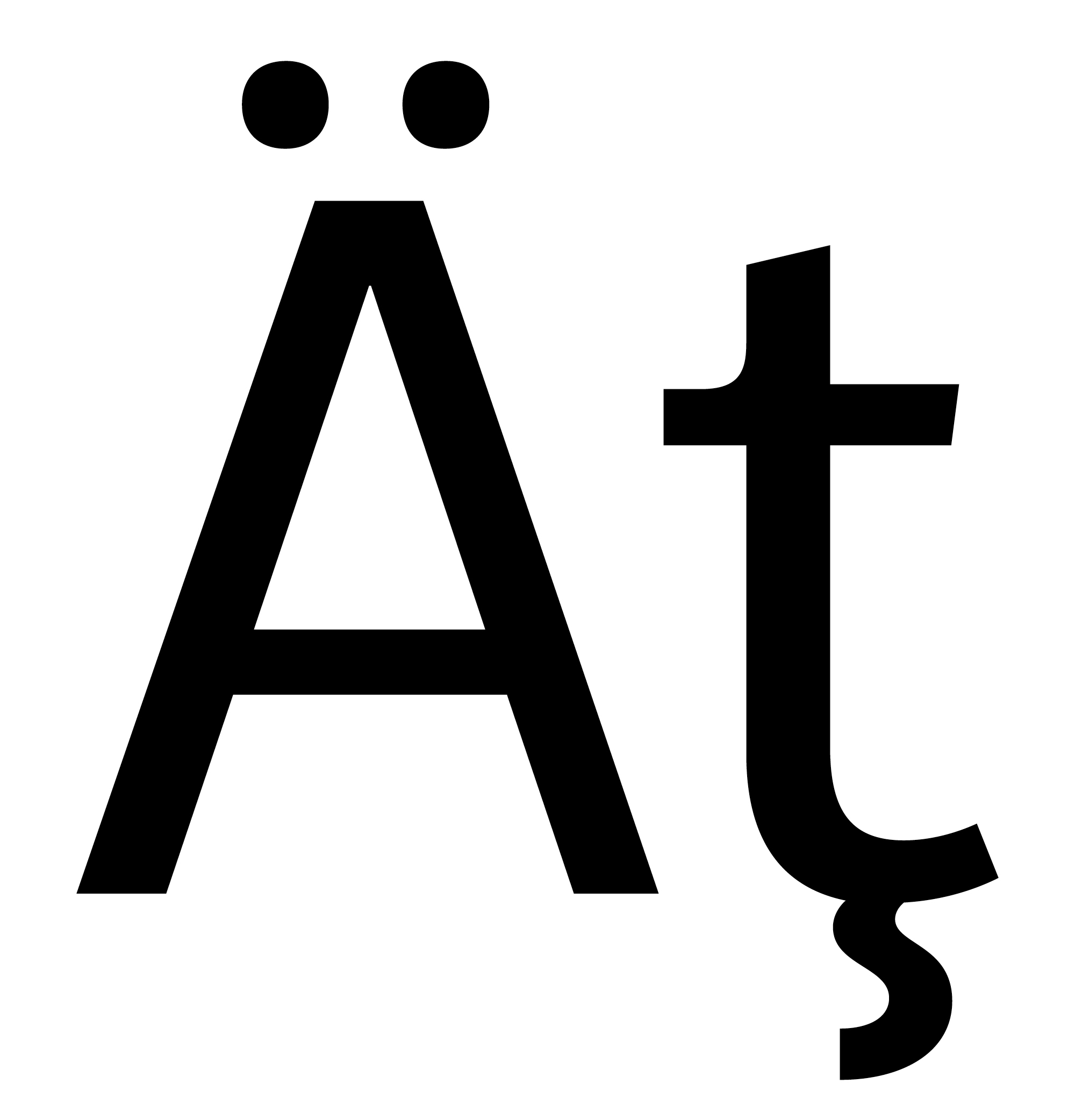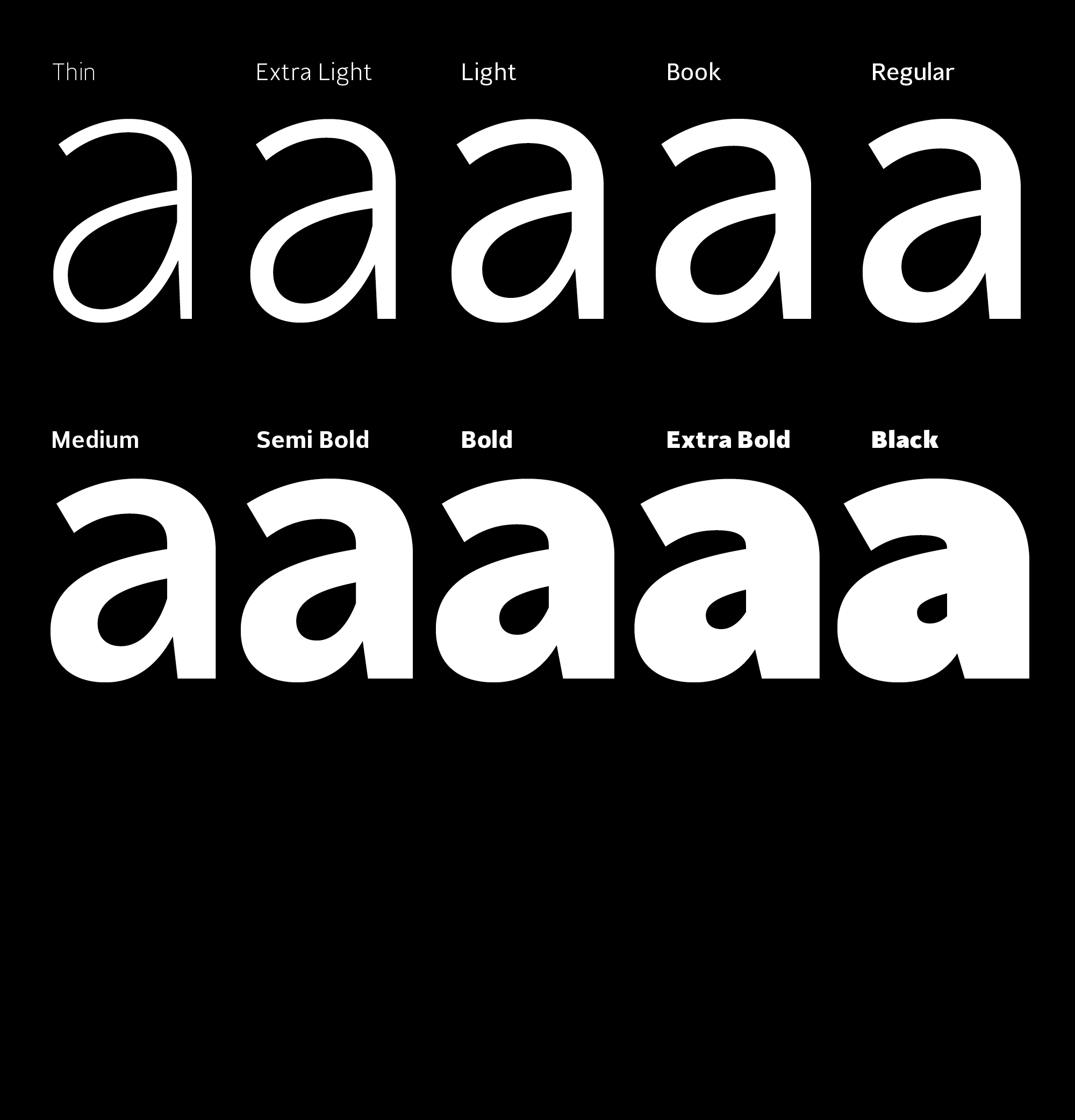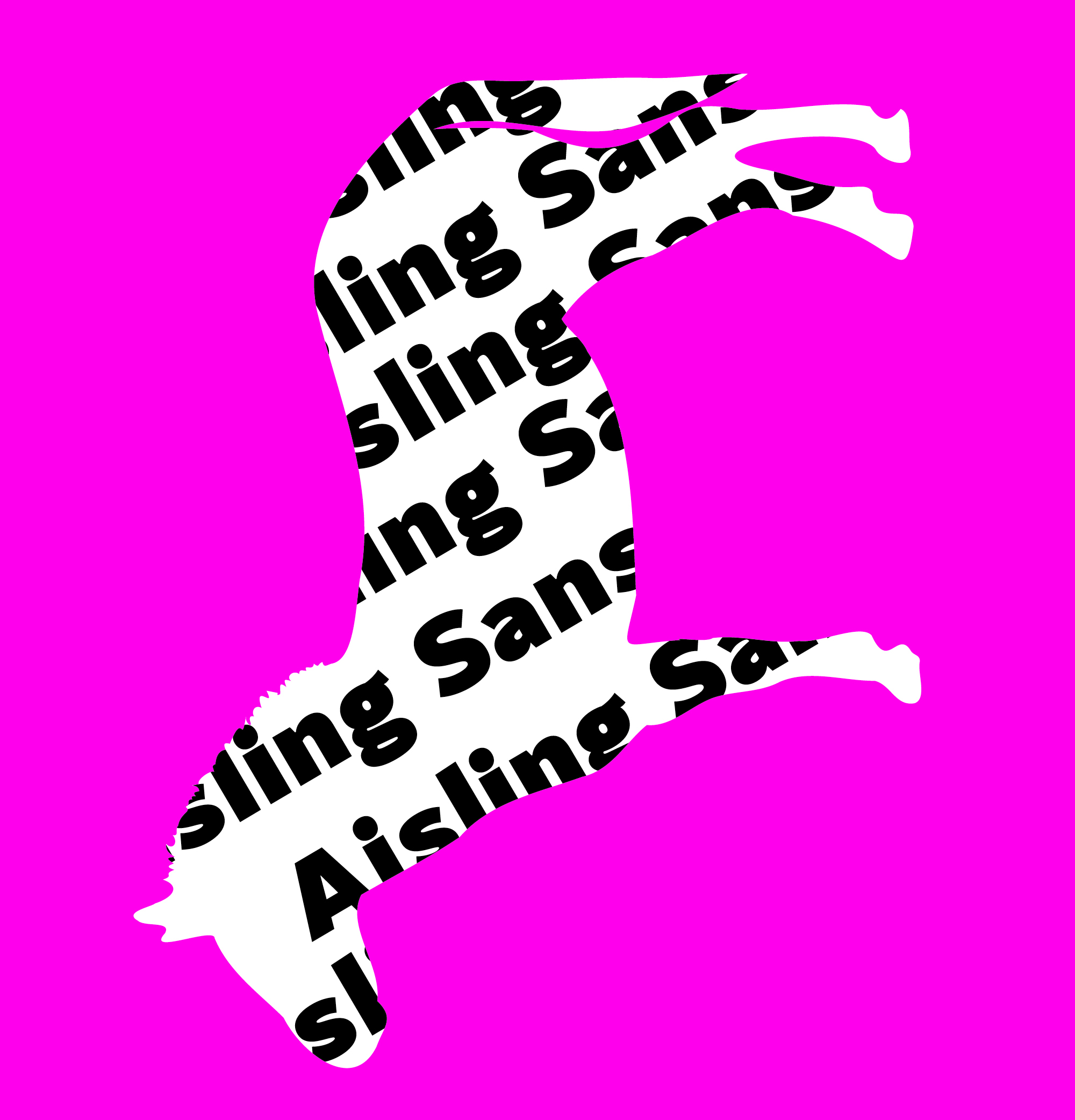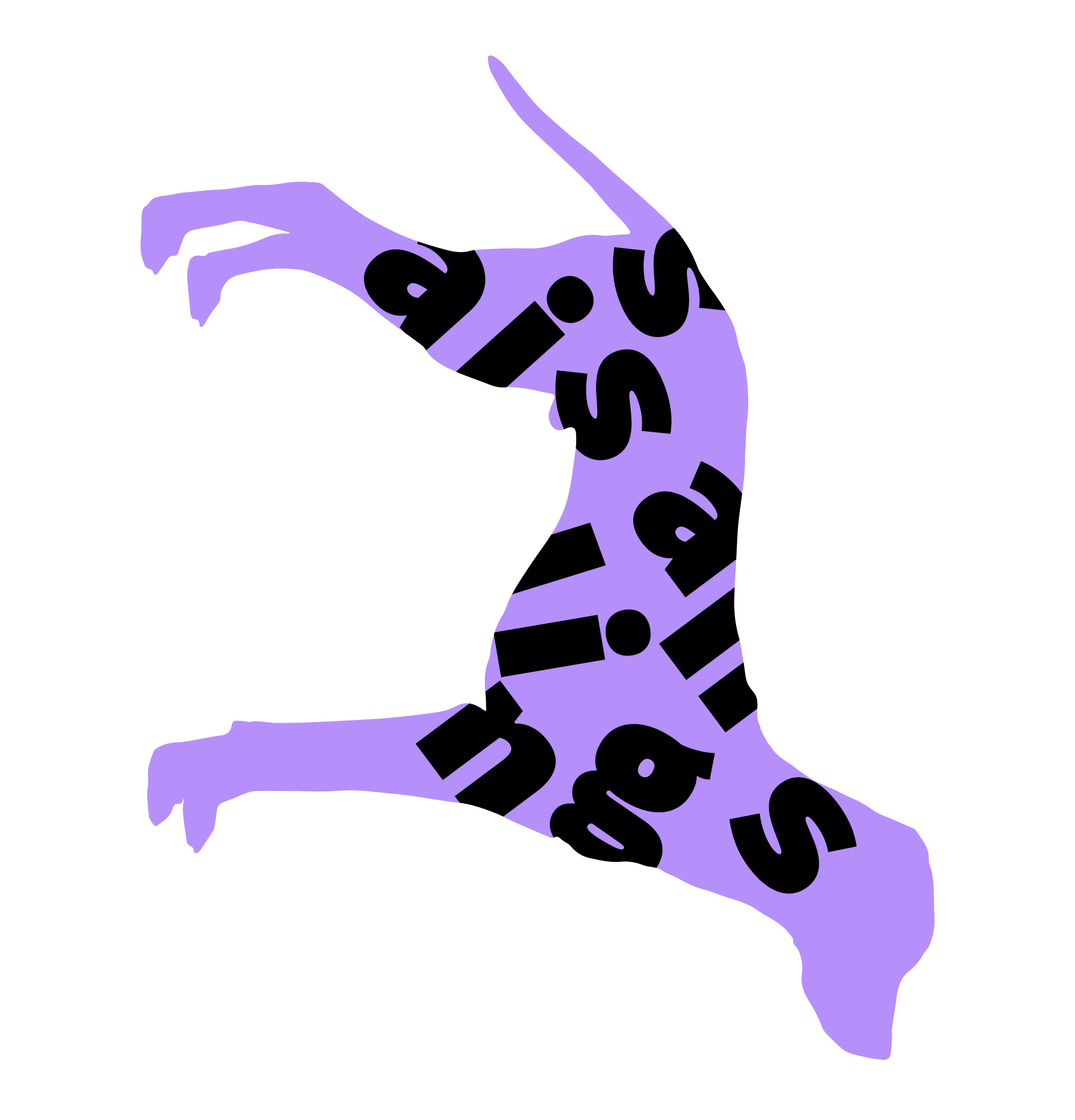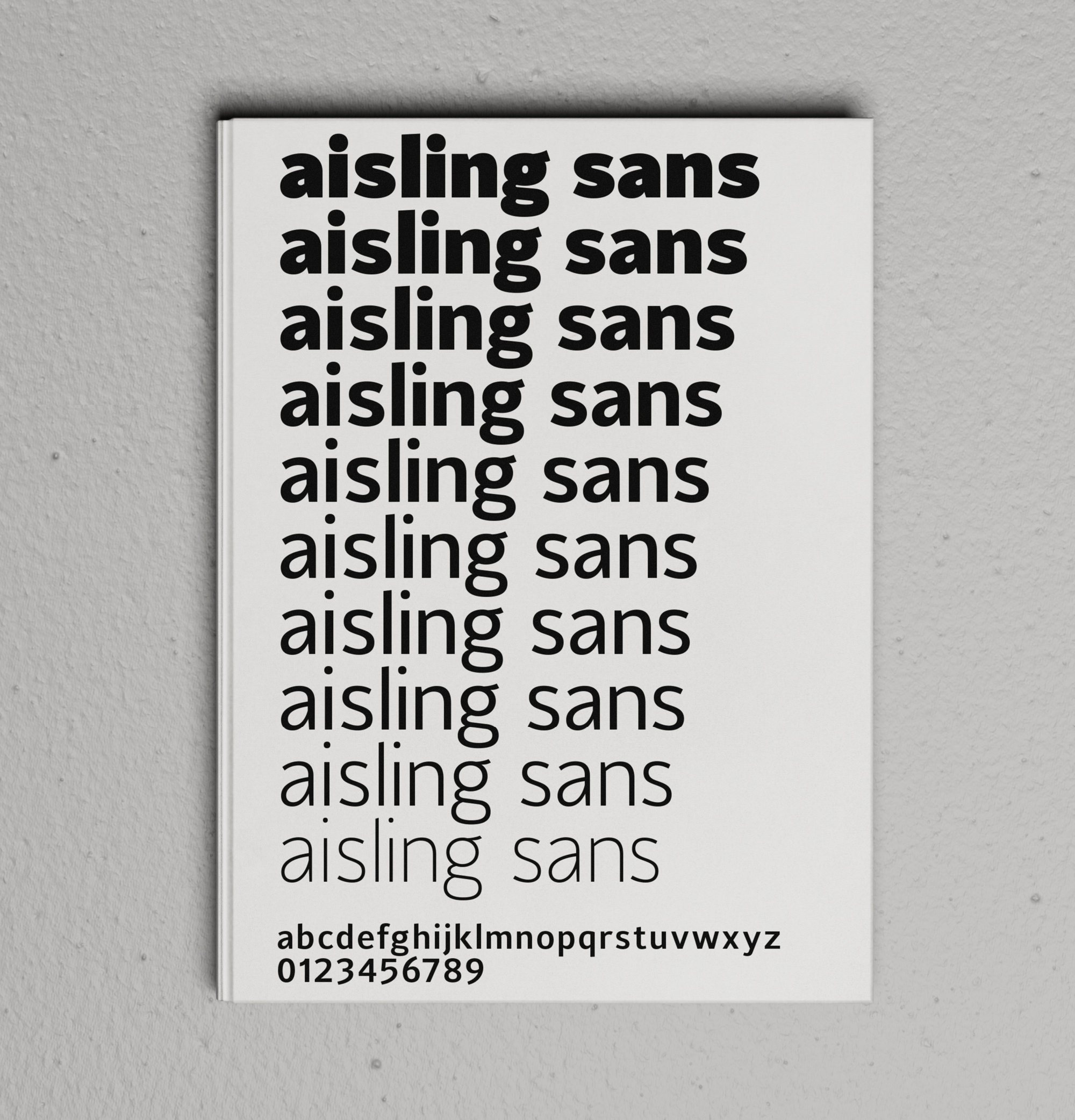
Aisling Sans embodies timeless modernity, blending the clarity of mid-century Swiss typography with a fresh, individual character. While rooted in the functional neutrality of classic grotesques, it introduces subtle contemporary flair through distinctive shapes, carefully sculpted curves, and a refined ductus that adds rhythm and elegance to every glyph.
With a wide overall stance and generous open counters, Aisling Sans is engineered for exceptional legibility across sizes and mediums. Its proportions are classically grounded, yet its voice feels current—neither overly rigid nor overtly expressive. This balance gives Aisling Sans a quiet confidence, making it equally suited to editorial design, branding, and interface work.
Every letterform has been crafted to feel intentional, with a focus on spatial harmony and visual flow. From headlines that demand clarity with sophistication, to dense text blocks that require calm readability, Aisling Sans adapts with poise. Its design invites repeated use—offering enough character to stand out, and enough restraint to stay versatile.
Available in a comprehensive range of weights, Aisling Sans offers a flexible typographic toolkit built for modern workflows. OpenType features include stylistic alternates, tabular figures, and thoughtfully drawn symbols—ensuring it performs just as beautifully in branding systems as it does in digital interfaces. With full variable font support and multilingual language coverage, Aisling Sans is optimized for responsive environments, allowing seamless scalability and consistent tone across print and screen.